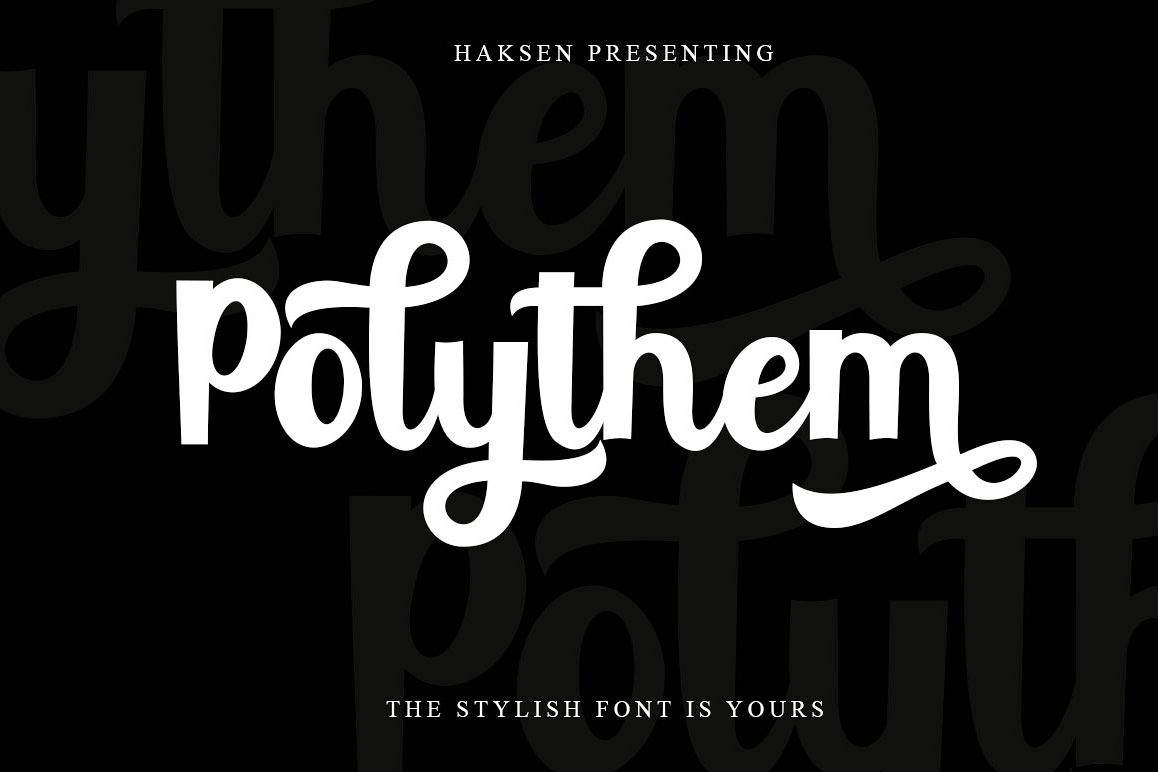
Polythem Bold Classy
"Polythem" is a beautiful high bold script font that
makes for gorgeous logos, posters, wedding invitations, blog posts,
social media, and more!
Polythem Script includes ligatures to make everything look totally hand-done, and alternates for each letter.